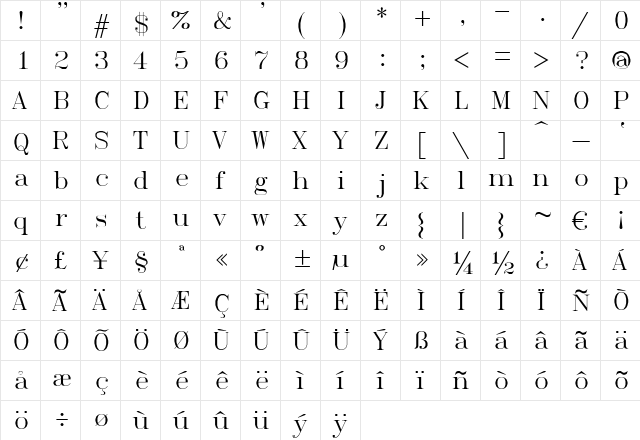
RomanT Regular
Design Context for RomanT Typeface
RomanT offers clean, dependable letterforms without strong stylistic allegiance, making it a practical choice for designers who need flexibility.